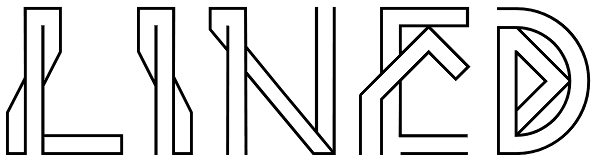
Lined
The Lined font started out with some scribbles - playing with lines and making shapes fold, underlap and overlap, eventually evolving into letters. This is a display/ornamental font and it was made in 2009, it's meant for decorative use and not in...
Lined
Lined Bold